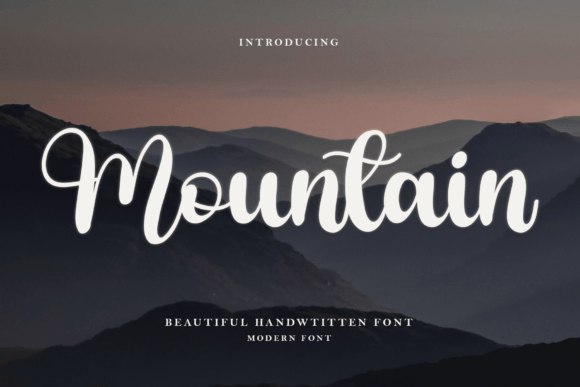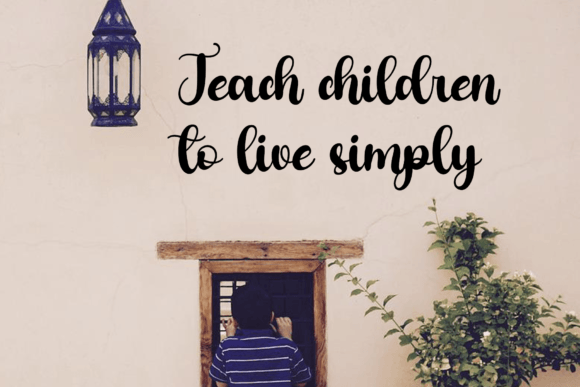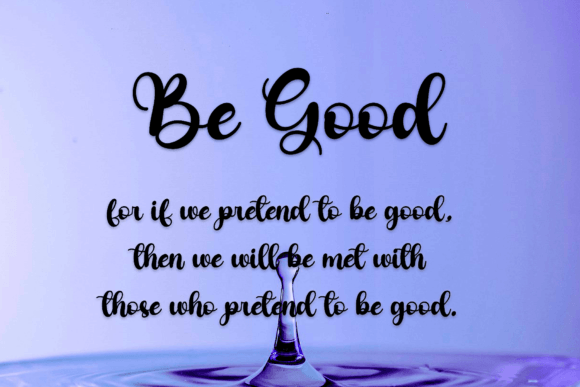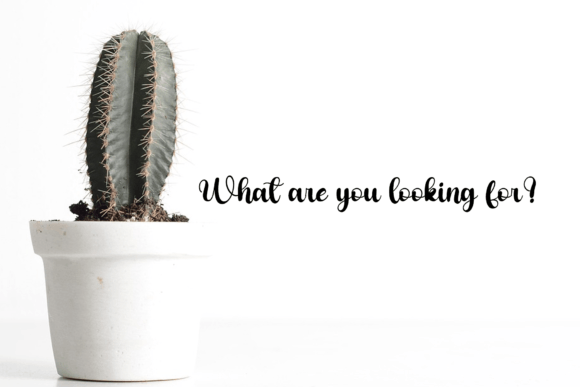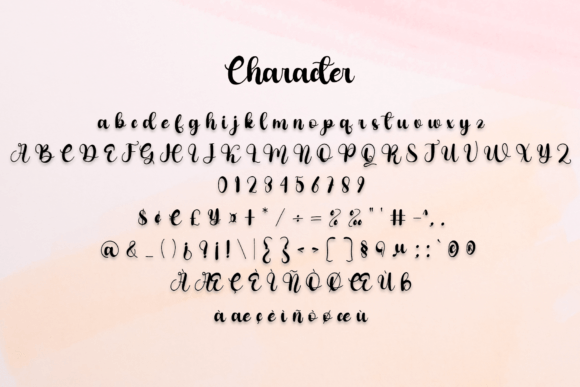
About Mountain Font
“Mountain” is a delicate handwritten font that has been thoughtfully crafted to bring a cool and unique aesthetic to your designs. With meticulous attention to detail, this font is particularly well-suited for various applications such as letters, invitations, food product packaging, titles, and more. When incorporated into your creative projects, Mountain promises to deliver a captivating and impressive effect, adding a distinctive touch to your designs.
The delicate nature of Mountain makes it an excellent choice for projects that require a blend of sophistication and uniqueness. The carefully crafted characters ensure a refined appearance, making it a versatile option for a broad range of design purposes.
In letters and invitations, Mountain adds a personal and charming touch. Its delicate handwritten style creates a warm and inviting atmosphere, making your correspondence more engaging and memorable.
For food product packaging, Mountain introduces a unique and cool element. Its delicate characters contribute to the overall aesthetics of the packaging, making it stand out and catch the eye of consumers.
In titles and headers, Mountain brings a touch of sophistication. Whether for digital content, print materials, or presentations, this font enhances the visual appeal of titles and headers, creating a cool and distinctive look.
The uniqueness of Mountain extends to various design projects, making it suitable for branding, signage, and more. Its delicate yet impactful appearance ensures that it leaves a positive and memorable impression on your audience.
As a versatile font, Mountain can be used for creative projects where a delicate and cool aesthetic is desired. Its effect on designs is sure to amaze and add a touch of character and charm to your overall visual presentation.
In summary, Mountain is a delicately crafted handwritten font that brings a cool and unique vibe to your designs. Whether used in letters, invitations, food product packaging, titles, or other creative projects, Mountain stands out with its distinctive and charming effect. Add this font to your creative toolkit and be amazed at how it elevates the impact of your designs, making them cool, unique, and visually striking.